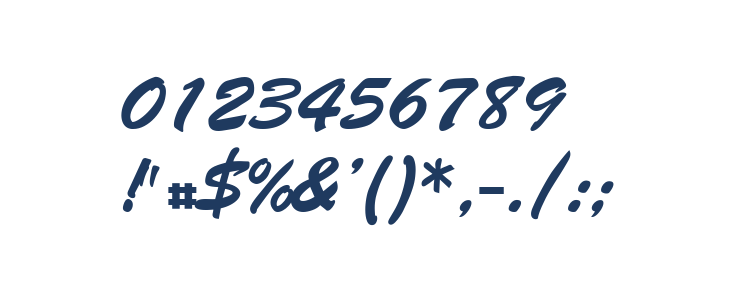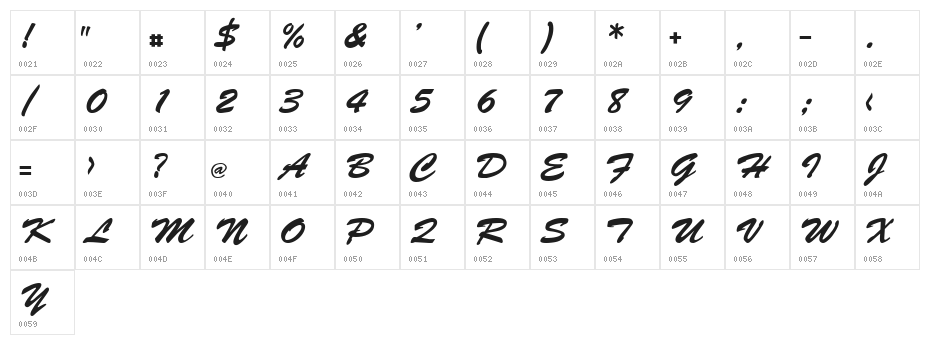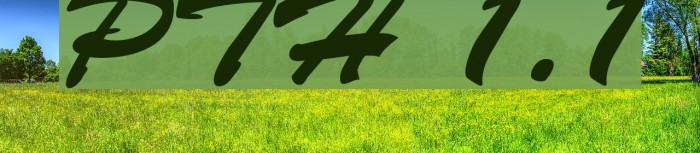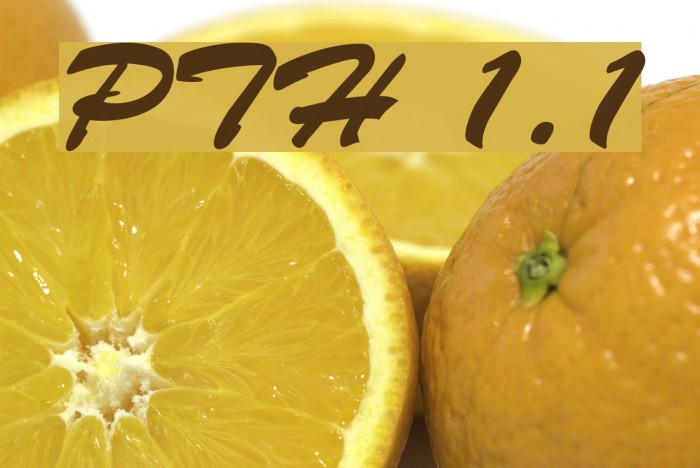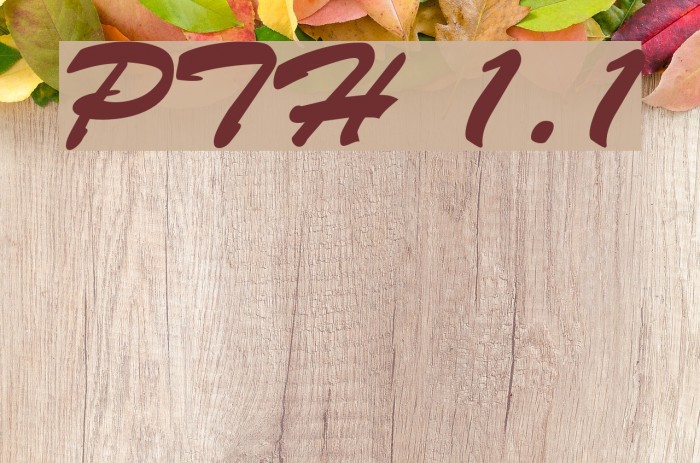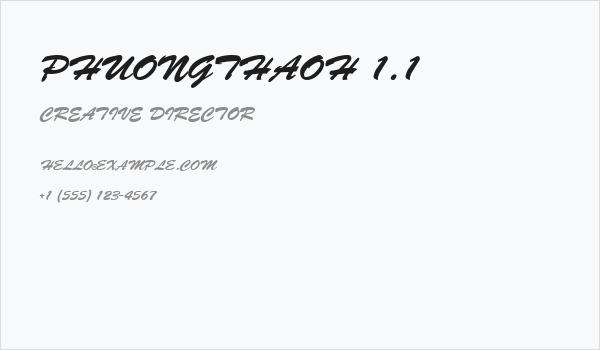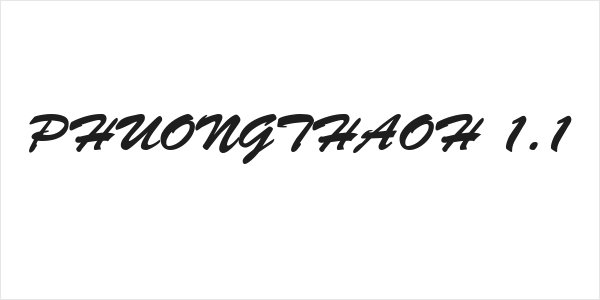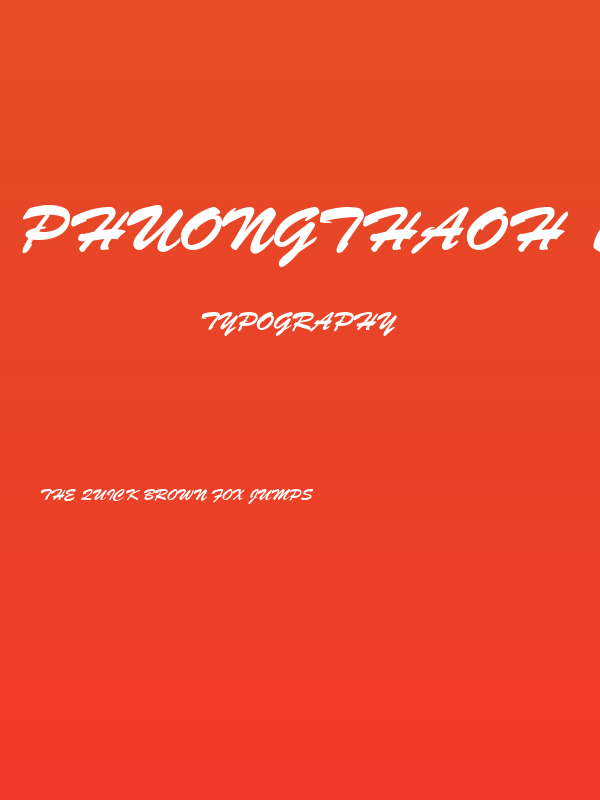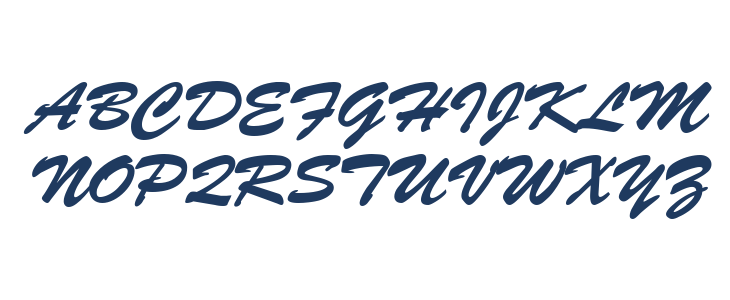
PhuongThaoH 1.1 Font
PhuongThaoH 1.1 Description
This font features a bold, cursive style with a strong emphasis on fluidity and elegance. The characters are interconnected, giving a sense of continuity and flow, reminiscent of traditional calligraphy. The uppercase letters are slightly larger and more pronounced, while the lowercase letters maintain a consistent rhythm and balance. The numerals and special characters are designed to match the overall aesthetic, ensuring a cohesive look. The strokes are thick and consistent, providing a robust appearance that stands out.